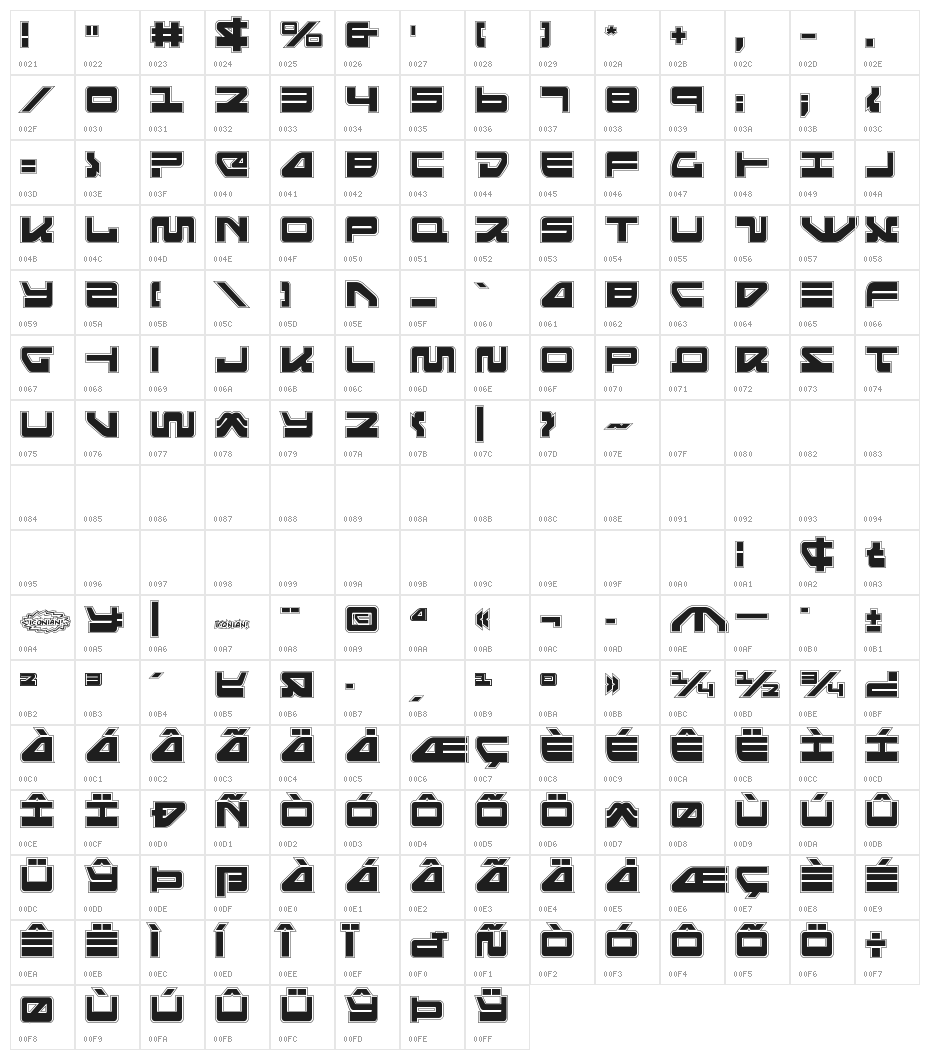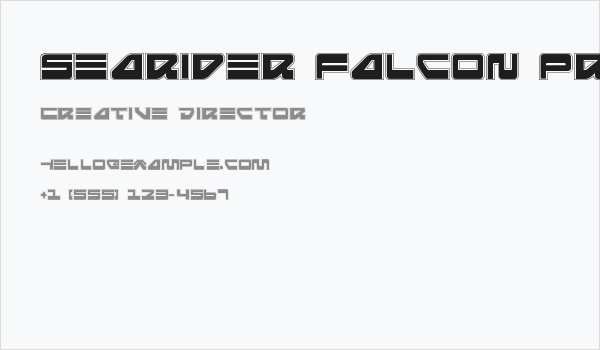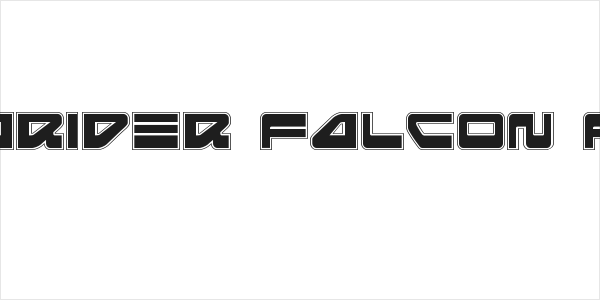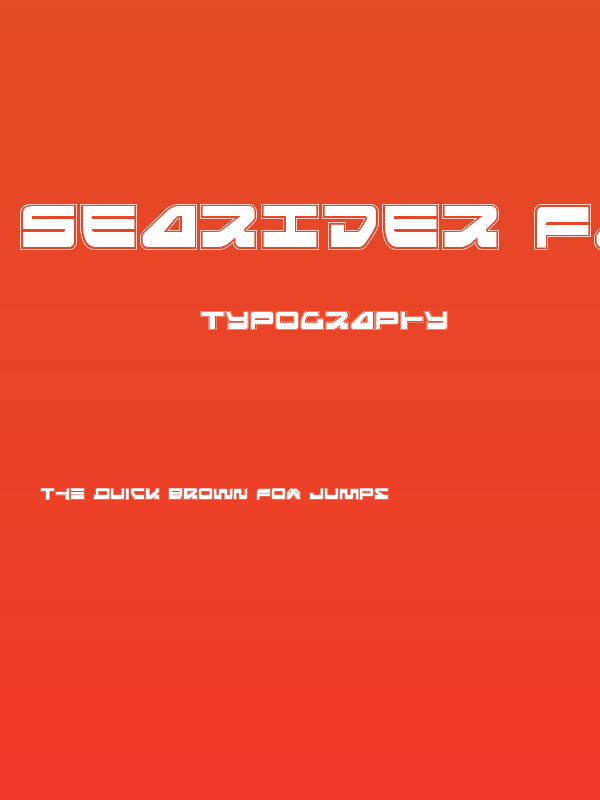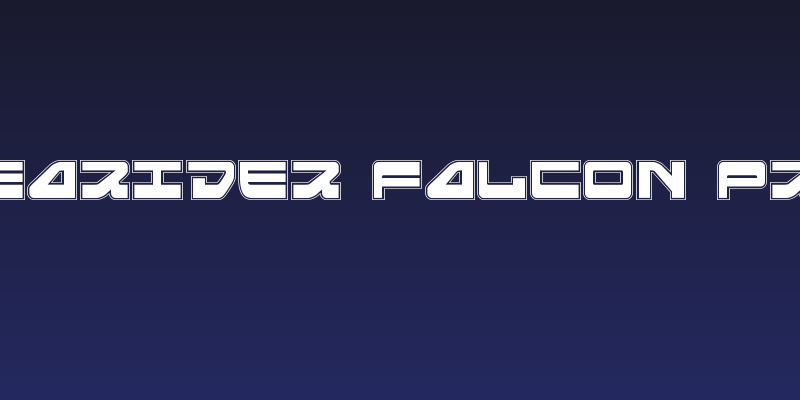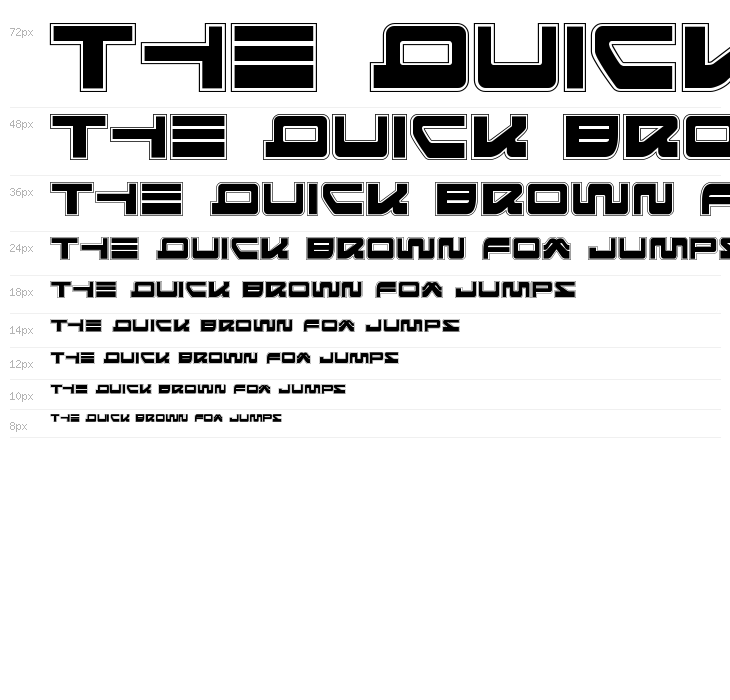
Searider Falcon Pro Font
Searider Falcon Pro Description
This font features a bold, futuristic design with a distinct geometric style. The characters are outlined with a thick border, creating a strong visual impact. The angular shapes and sharp edges give it a modern, tech-inspired appearance. The uppercase and lowercase letters maintain a consistent style, with unique cuts and angles that add to its dynamic look. The numbers and special characters follow the same design principles, ensuring uniformity across all glyphs. This font is ideal for projects that require a bold and striking visual presence.